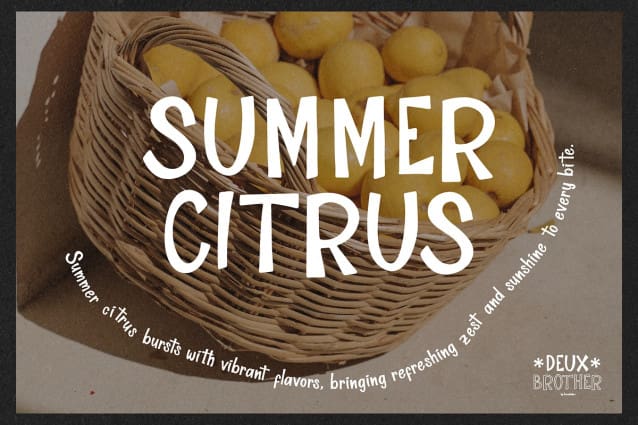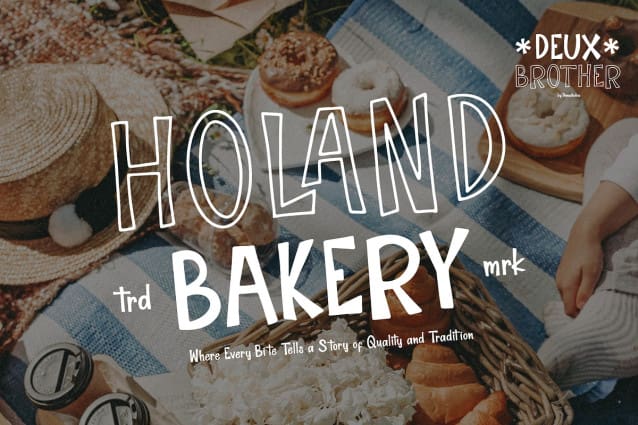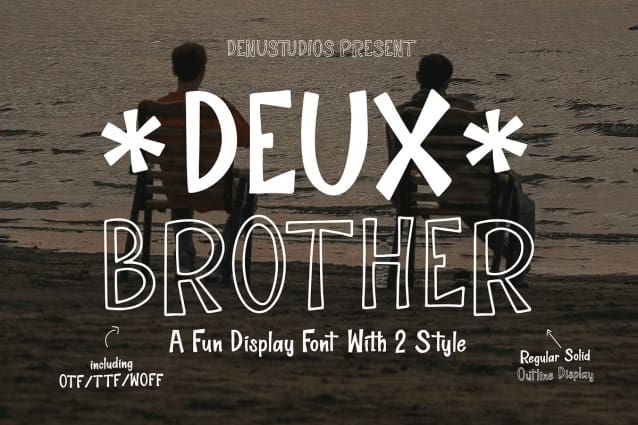
Deux Brother Font
Deux Brother Font | Fun Display With 2 Style Font, from Denustudios, suitable for any projects such as: logos, branding projects, homeware designs, product packaging, mugs, quotes, posters, shopping bags, t-shirts, book covers, name card, invitation cards, greeting cards, label, photography, watermark, special events, and all your other lovely projects that need a Fun Display Font taste.